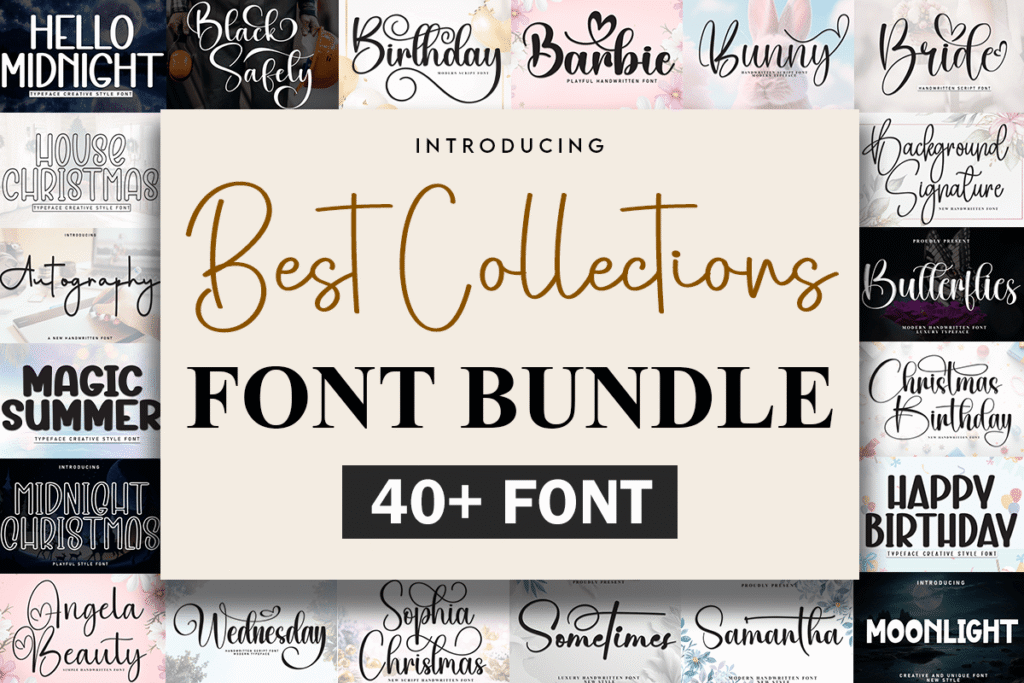
30+ Most beautiful fonts you've never heard of
Great design should never feel out of reach. Whether you’re refining a brand identity, crafting scroll-stopping social visuals, or bringing a personal project to life, the perfect typeface can elevate your work in an instant. We’ve gathered a selection of standout fonts that combine premium aesthetics with professional-grade quality – ideal for everything from clean, modern minimalism to expressive scripts and bold statement styles.
Typography that looks high-end doesn’t have to stretch your budget. Ready to give your designs a refined edge? Let’s explore.
Thoughtfully chosen for designers, entrepreneurs, and creatives who value both style and practicality.
Best Collection Font Bundle
Dive into a world of typography wonders with our Best Collections Font Bundle – your one-stop solution for stunning, versatile fonts! Whether you’re crafting a heartfelt “Happy Birthday” message, designing a dreamy “Wedding” invite, or spicing up your “Christmas” projects, this bundle has it all. From the elegant “Blashe” to the playful “Batterflies,” each font is a masterpiece waiting to elevate your designs.
40+ Unique Fonts – Perfect for logos, social media, branding, and more!
Themed Styles – “Midnight,” “Summer,” “Moonlight,” and beyond to match any vibe.
Handwritten Bundles Font
Bring warmth, charm, and personality to your designs with the Spring Handwritten Font Bundle! Perfect for invitations, branding, social media, and more, these premium handwritten fonts add a touch of effortless elegance to any project. Whether you’re crafting a cozy “Hello Home” sign, a playful “Hey! Party” invite, or fresh Spring-themed graphics, this bundle has the perfect script to match your vibe.
- Authentic Handwritten Feel – Each font is crafted to look natural, cute, and full of character.
- Versatile & Trendy – Ideal for logos, quotes, wedding stationery, and seasonal designs.
Mega Handlettered Vol. 1 Font
Unleash your creativity with the MEGA Handwritten Script Bundle – a powerhouse collection of 25 premium, handcrafted fonts designed to make your projects pop! Whether you’re branding a startup, designing edgy social media content, or crafting sleek invitations, this bundle delivers bold, free-flowing, and ultra-stylish typography for every need.
- 25 Unique Hand-Lettered Fonts – From elegant scripts to gritty urban styles, there’s a vibe for every project.
Script 4 Bundle Font
Sip on creativity with the Script 4 Bundle – a carefully brewed collection of 4 hand-crafted fonts that blend rustic charm with elegant flair. Perfect for café logos, boutique branding, wedding stationery, or any project craving warmth and personality, these fonts (like the charming “Coffee Shop Anderson Finch” and chic “Bellaforma”) add a signature touch to your work.
- 4 Unique Styles – From playful scripts to refined signatures, each font is a work of art.
- Hand-Lettered Authenticity – Every stroke feels organic and intentional.
Ultimate Collection Font Set 1
Unlock limitless creativity with the Ultimate Collection Font Bundle – a treasure trove of 1,000+ professionally designed fonts for every mood, theme, and occasion! From the whimsical “Matilda – So Cute Font” to the elegant “Miracle of Nature”, this bundle is your one-stop solution for logos, branding, social media, packaging, and more.
- 1,000+ Unique Fonts – Handpicked styles including script, serif, display, and decorative fonts
- Perfect for All Projects – Business branding, wedding invites, merchandise, and social media
- Unique, unconventional fonts – For designers who hate playing it safe
- Perfect for experimental layouts, statement merch, and viral content
Ideal for: ✔ Rule-breakers ✔ Trendsetters ✔ Visual rebels ✔ Anyone tired of boring typography
These fonts have character, and they are ready to lend it to your work.